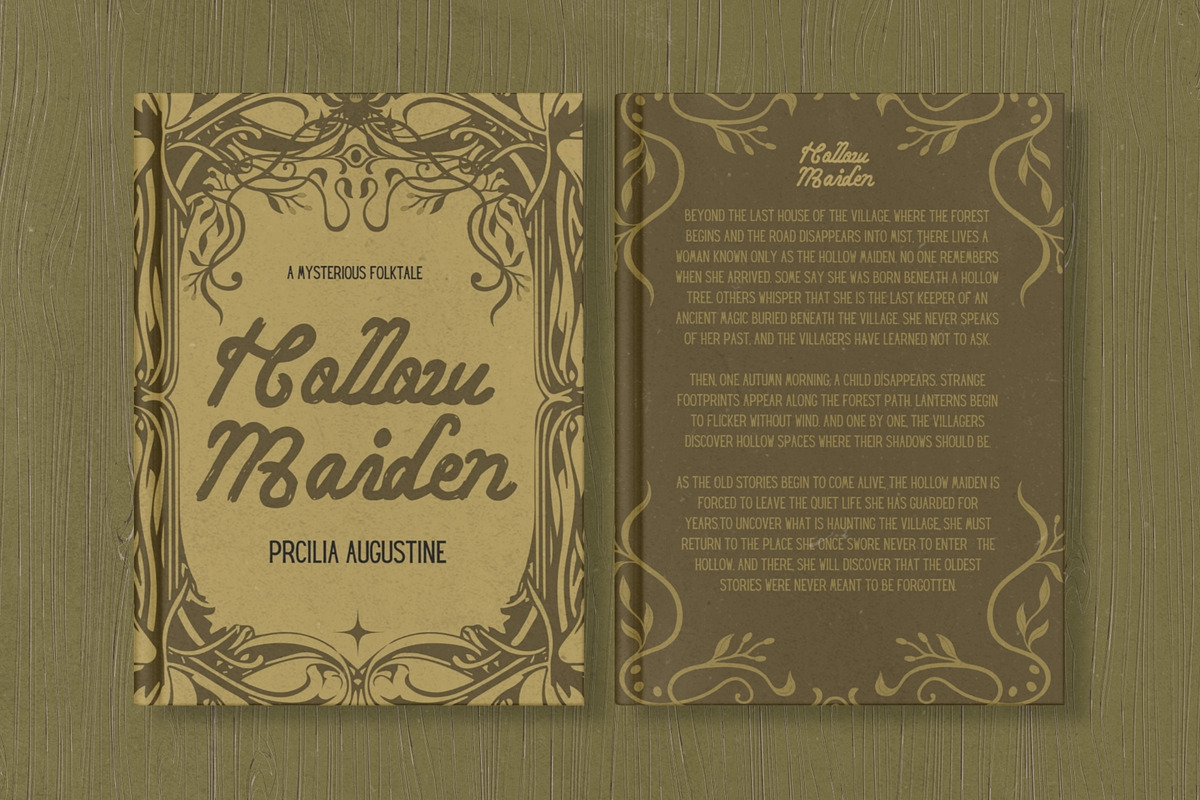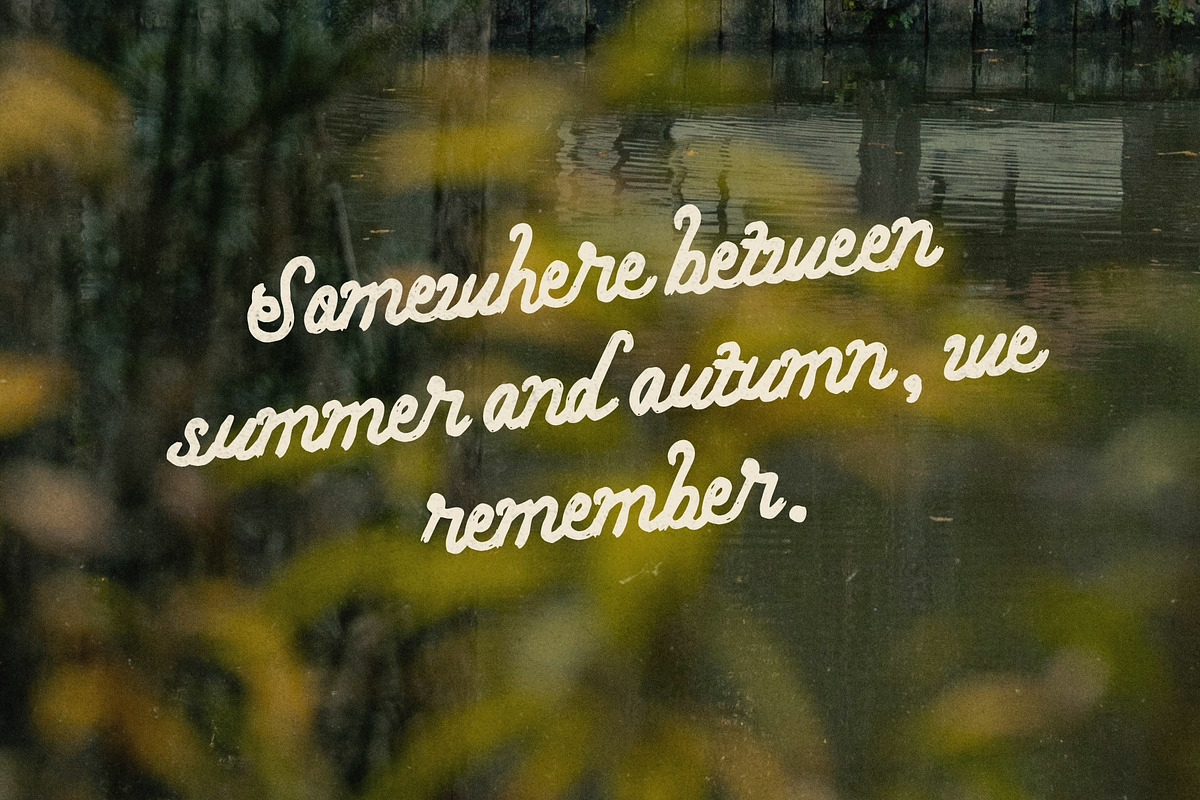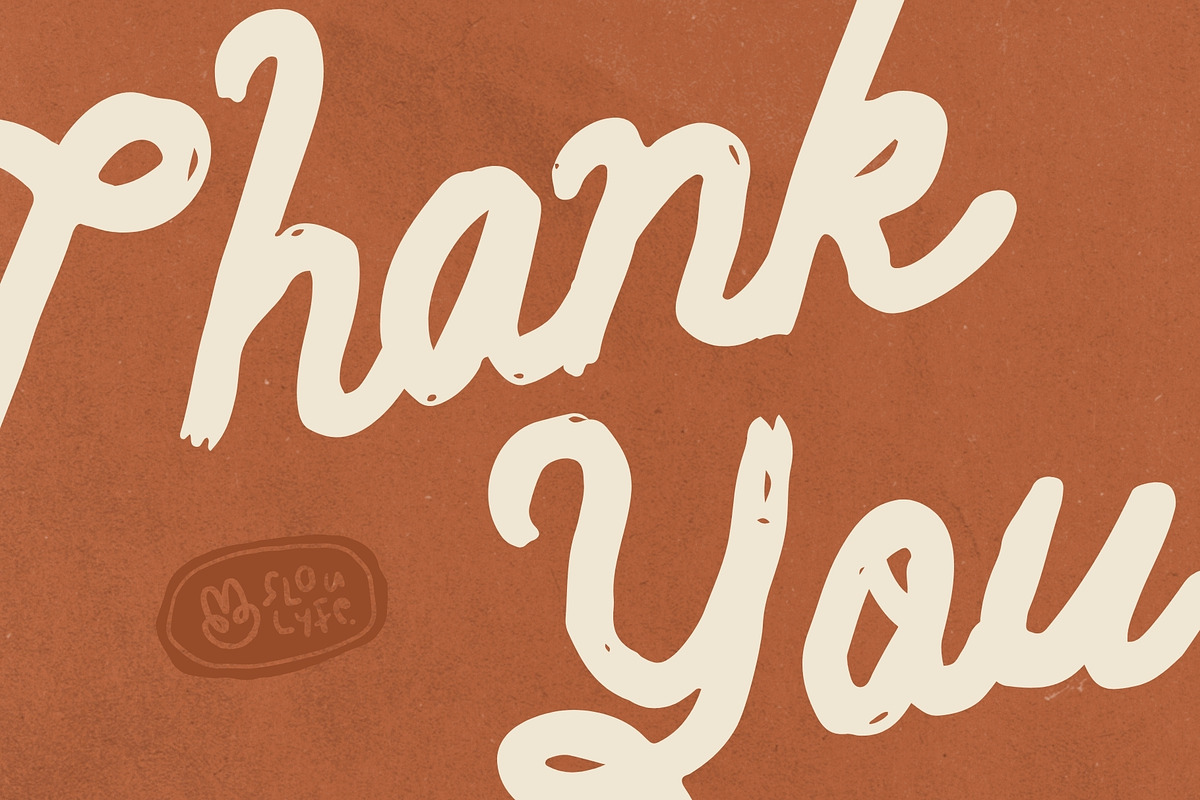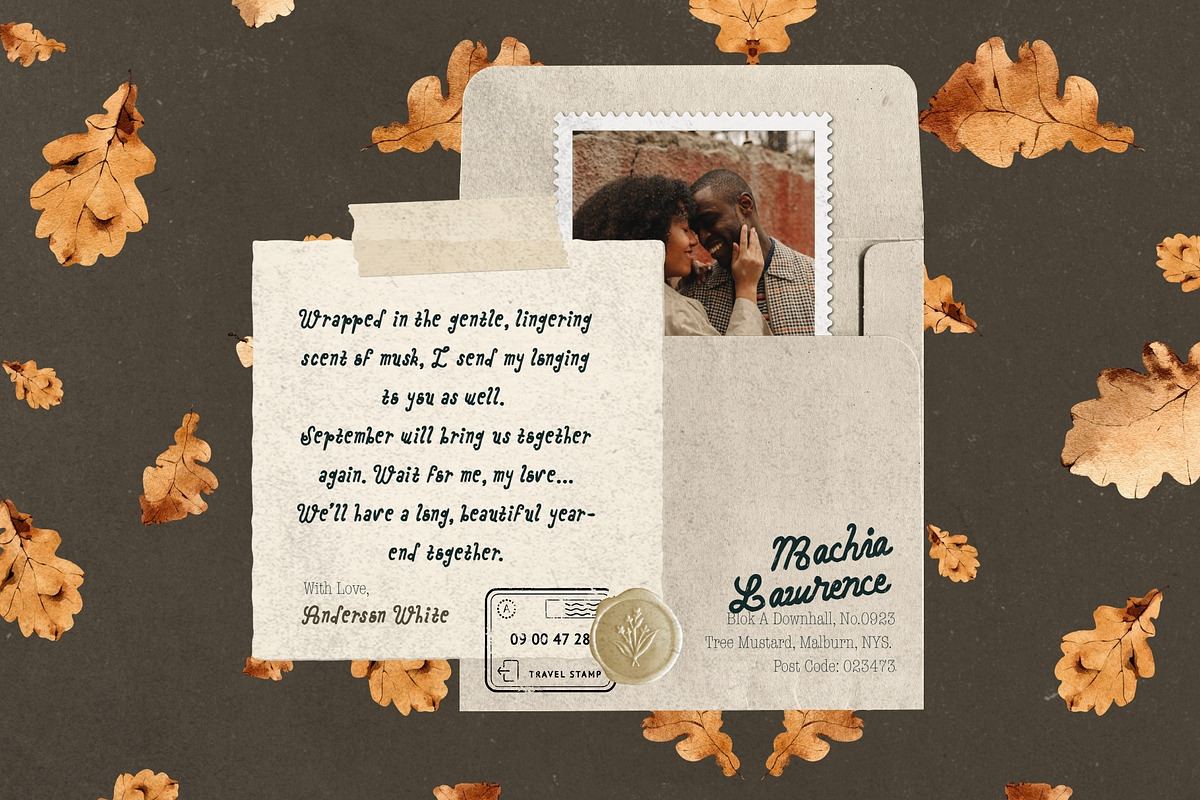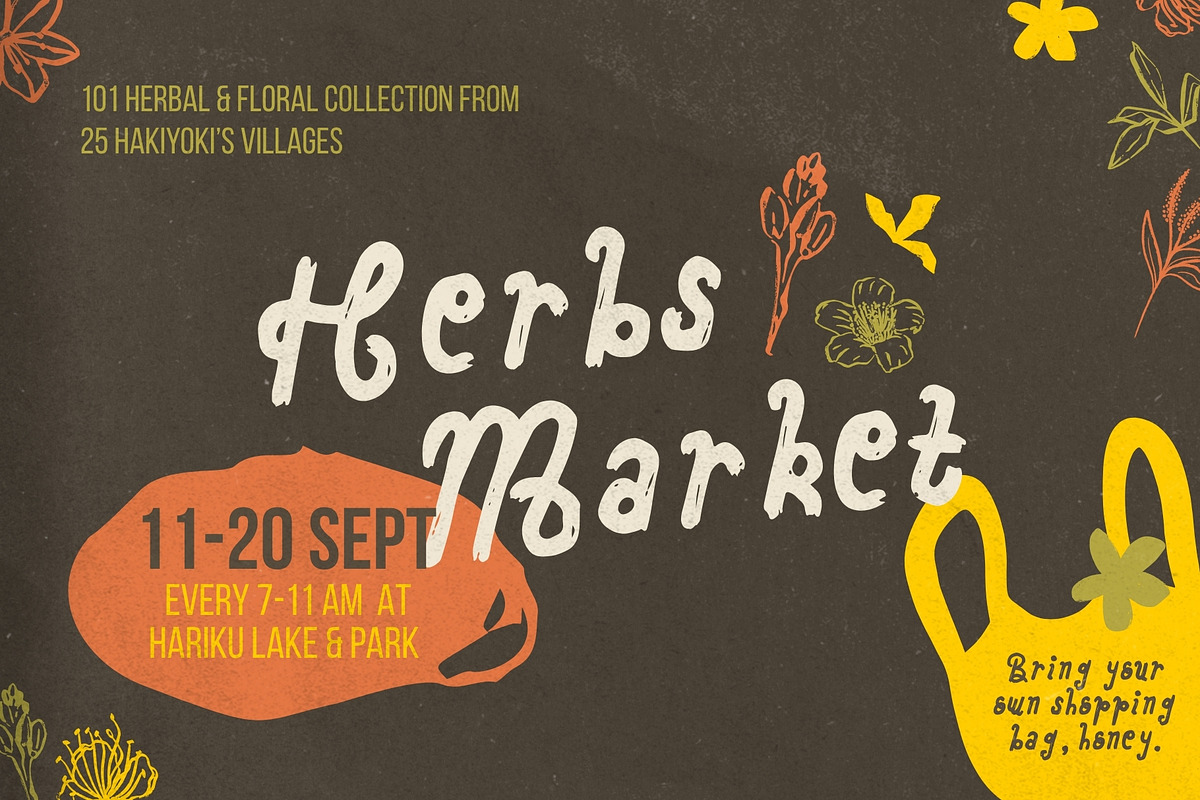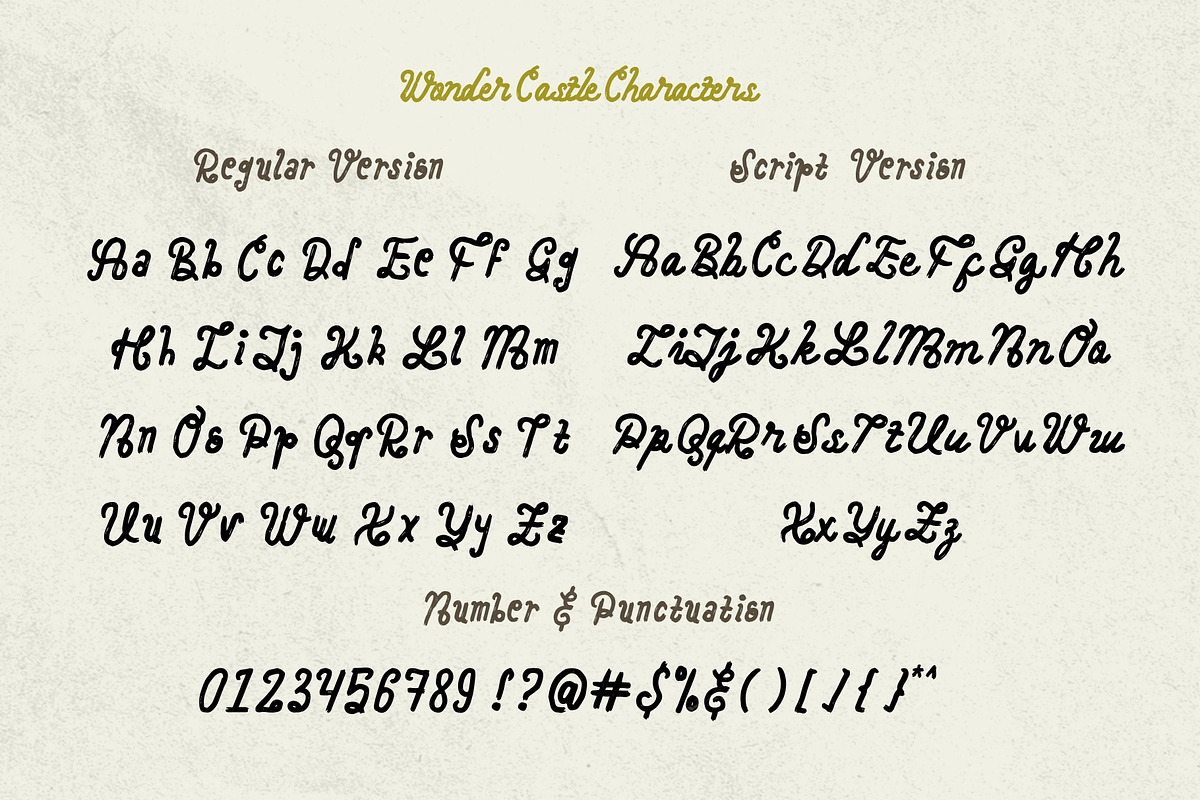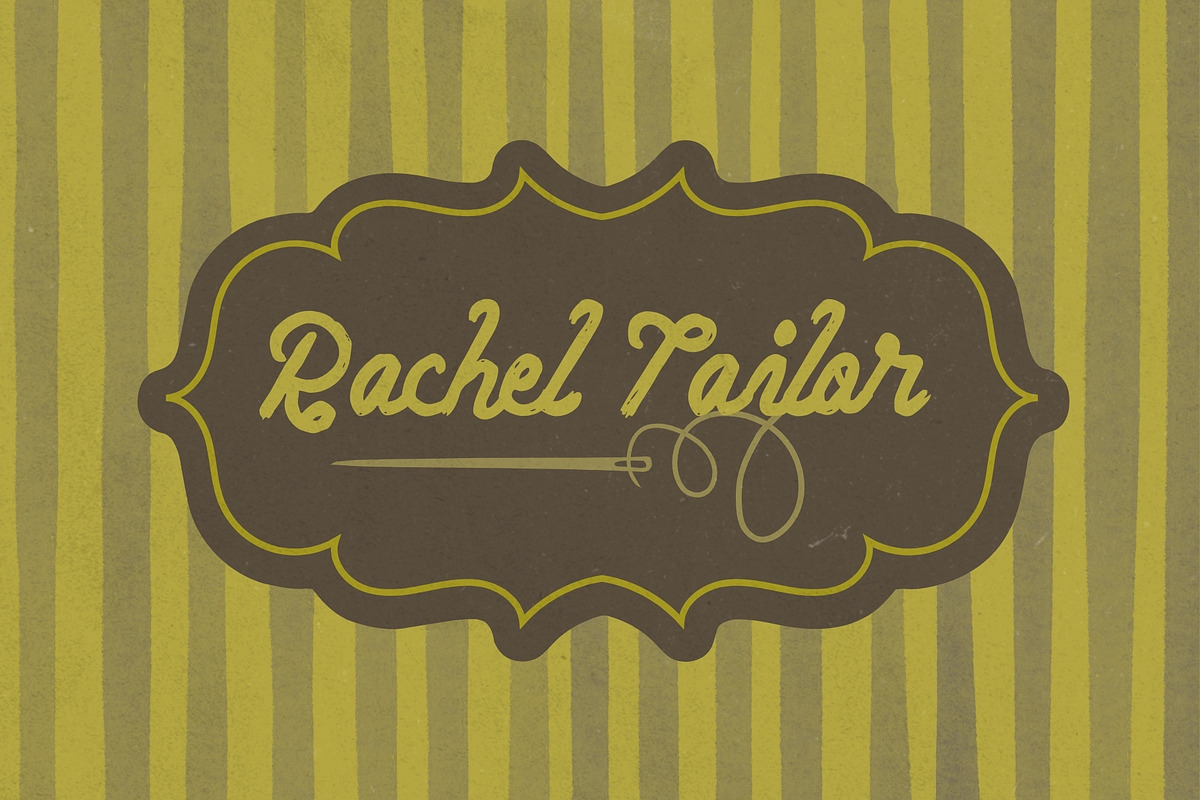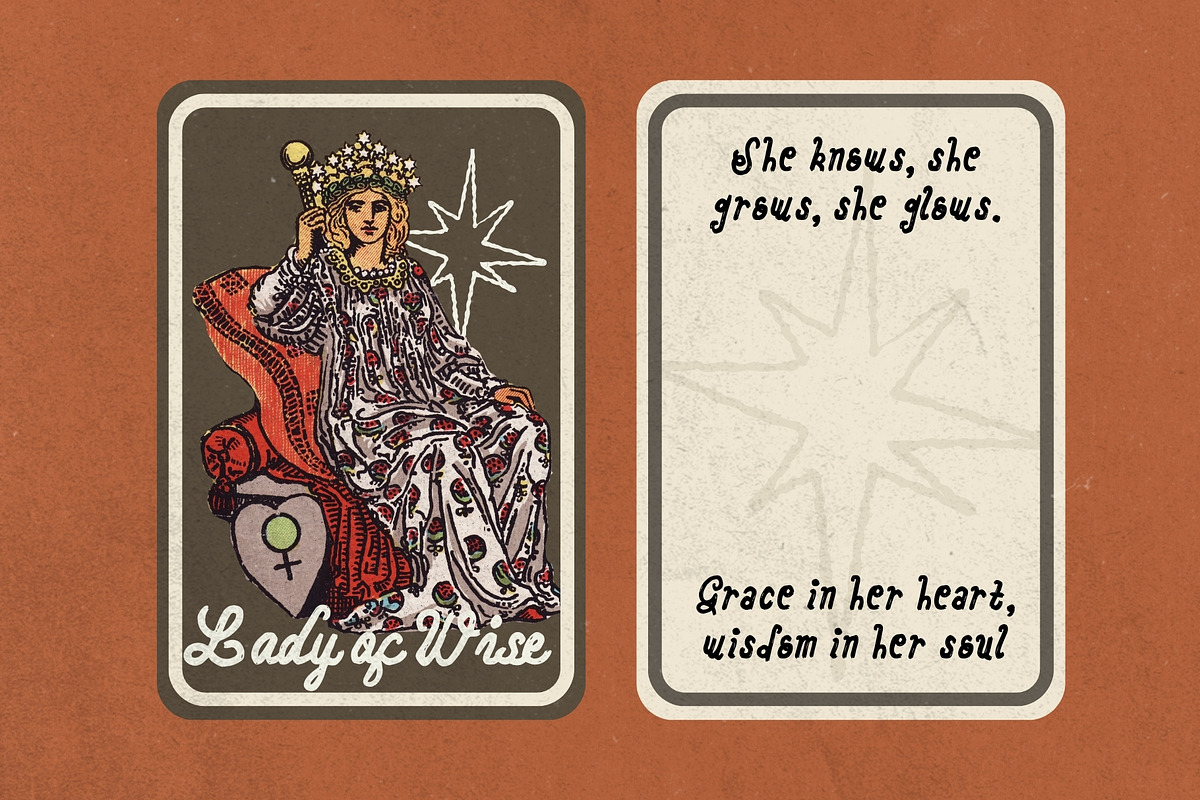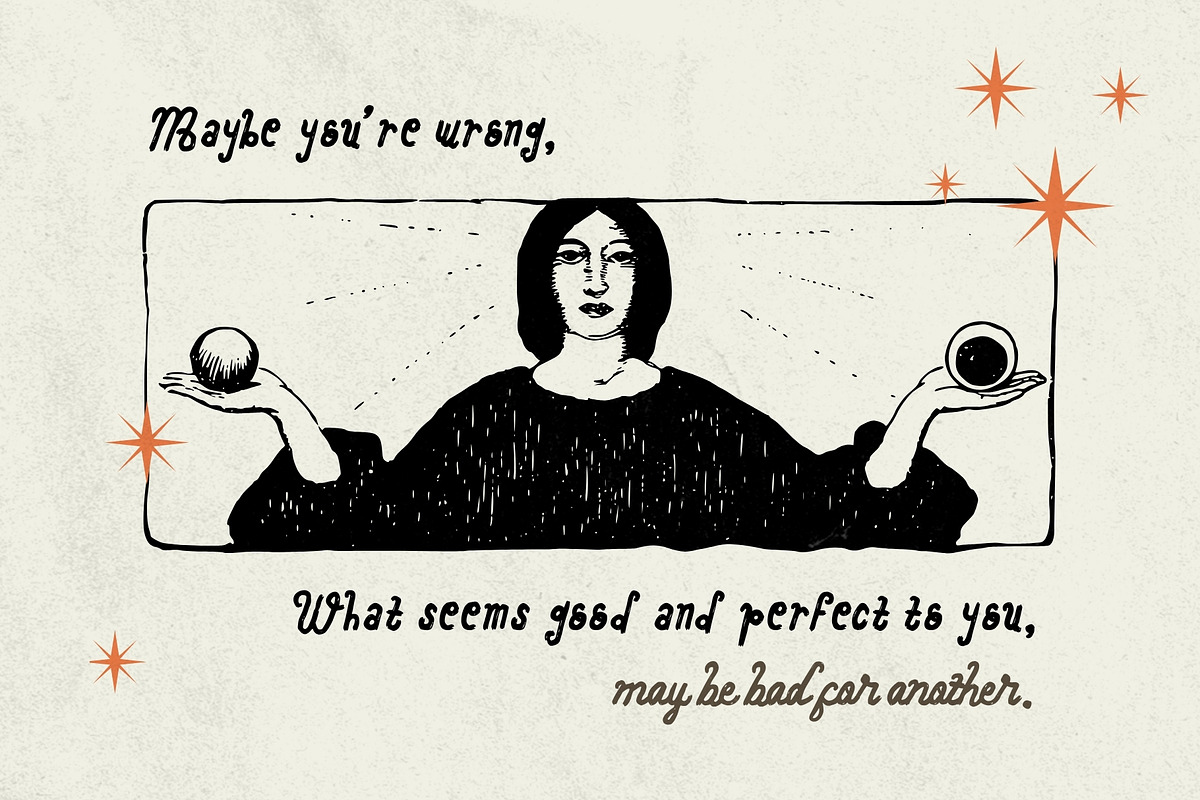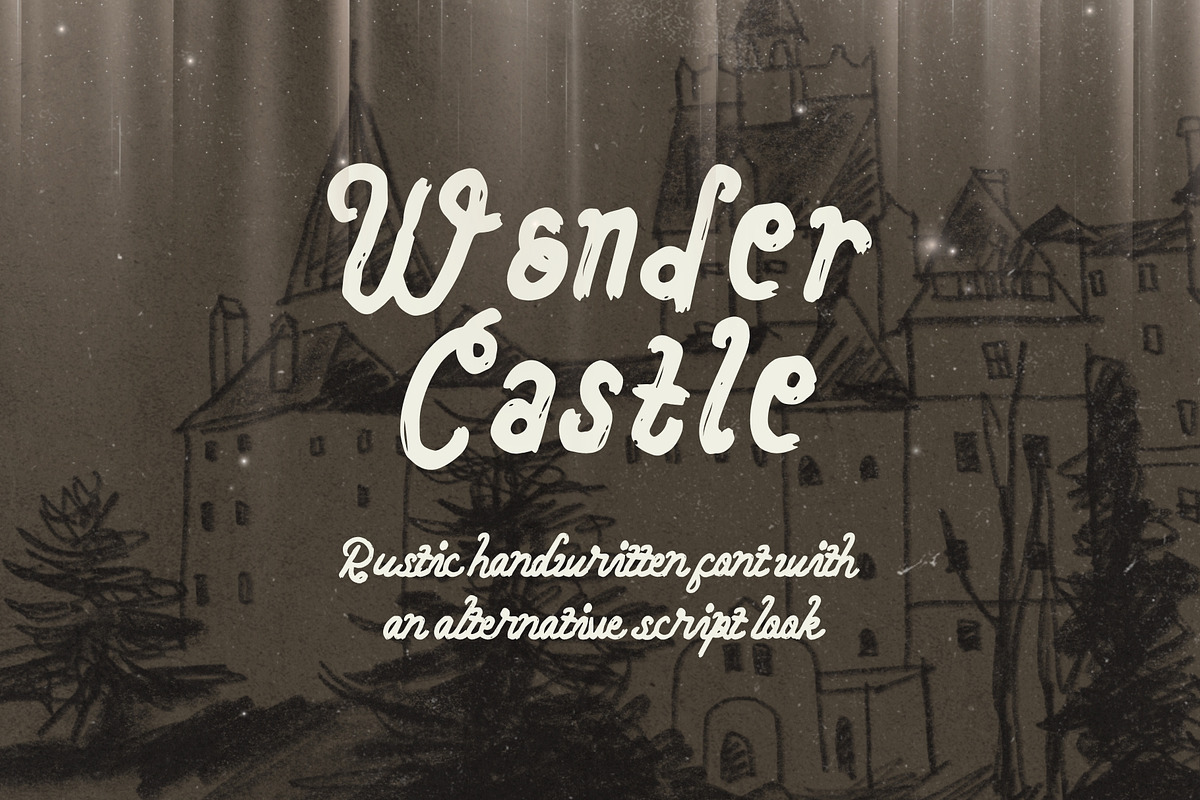
Wonder Castle Magical Handwritten
You're here. Welcome to Wonder Castle\~ A rustic handwritten font with a classic, nostalgic aura, inspired by the charm of old-world history. With an alternative script look, Wonder Castle is here to add a timeless, enchanting touch to your collection, perfect for creating invitations, branding, packaging, posters, and other designs with a magical vintage feel.